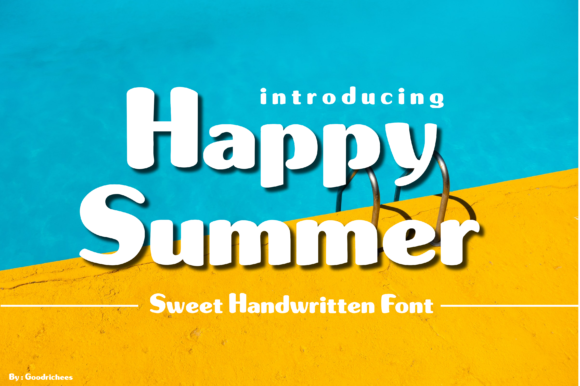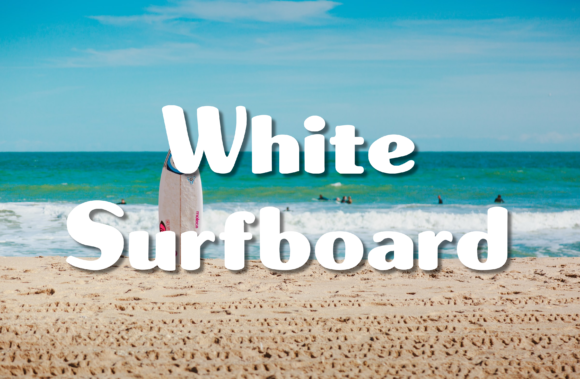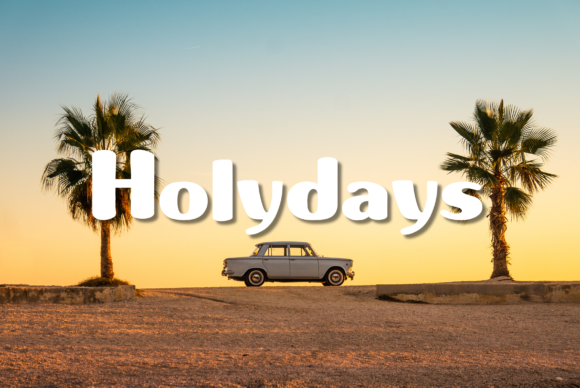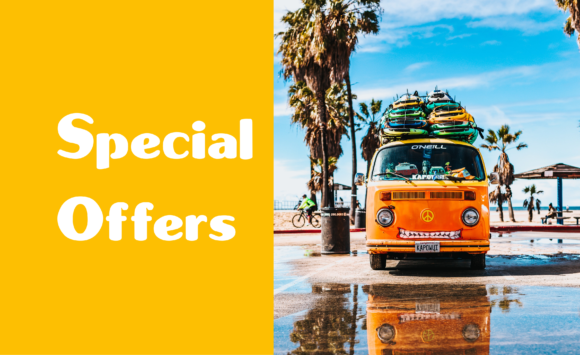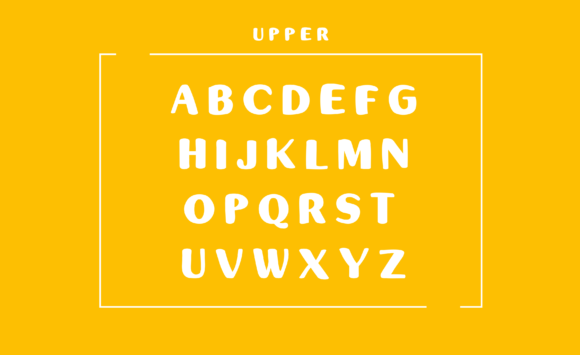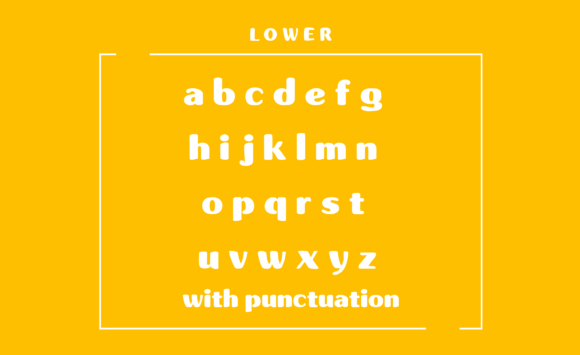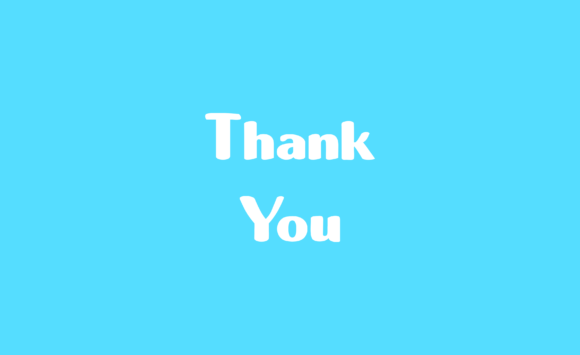
Happy Summer Font
About Happy Summer Font
Happy Summer is a vibrant and lively handwritten font that brings a bold and cool vibe to your designs. With its playful style and energetic appearance, this font is perfect for adding a youthful and joyful touch to your projects.
The bold letterforms of Happy Summer exude a sense of confidence and excitement. Each stroke is carefully crafted to create a dynamic and eye-catching look, making it ideal for designs that need a touch of fun and liveliness. Whether you’re creating party invitations, swimming gathering announcements, or any other design that celebrates the spirit of summer, Happy Summer will enhance the youthful and joyful atmosphere.
One of the great things about Happy Summer is its versatility. It can adapt to various design themes and styles, from casual and playful to bold and adventurous. Its bold and cool nature makes it suitable for a wide range of applications, allowing you to experiment and create designs that capture the essence of summer.
With Happy Summer, you can bring a sense of energy and joy to your designs. Its vibrant and lively appearance creates an engaging and uplifting composition that instantly grabs attention. Whether you’re using it for headlines, titles, or body text, Happy Summer adds a touch of youthful exuberance and excitement to your typography.
Incorporating Happy Summer into your designs will infuse them with a sense of happiness and positivity. Its cool and bold nature creates a refreshing and vibrant atmosphere that resonates with the spirit of summer. Whether you’re designing for personal projects or client work, Happy Summer will bring a sense of joy and enthusiasm to your designs.
In conclusion, Happy Summer is a bold and cool handwritten font that adds a youthful and joyful touch to your designs. Its dynamic letterforms and versatile nature make it a great choice for various design projects. Embrace the vibrant and energetic vibe of Happy Summer and let it inspire you to create designs that celebrate the spirit of summer and bring happiness to others.